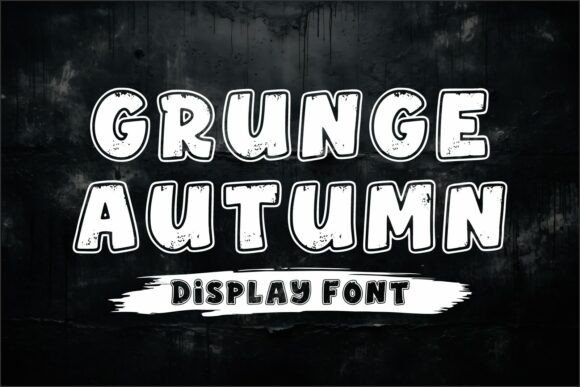
The Birth of Rebellion: Grunge Autumn Font
Do you remember the rush of creating something raw and unbridled? Maybe it was a late-night jam session, a spontaneous art piece, or a hastily scribbled poem. Whatever the spark, it’s that feeling of untamed energy that the Grunge Autumn Font captures with unwavering precision. This bold, distressed typeface embodies the unapologetic spirit of urban rebellion and underground design, daring to be imperfect and unpolished.
Designed to evoke the gritty essence of grunge culture, the Grunge Autumn Font is perfect for designers seeking to inject their work with a fearless attitude and a dash of authenticity. Its rough textures, imperfect edges, and unapologetic vibe instantly demand attention, making it an ideal choice for posters, album covers, streetwear branding, movie titles, and edgy graphic design projects.
- Unique Characteristics: Grunge Autumn Font features a distressed, hand-drawn aesthetic with subtle texture and imperfections, giving it a unique, organic feel.
- Font Style: Grunge Autumn Font is available in regular and italic styles, providing flexibility for designers to create a range of visual effects.
Grunge Autumn Font Review
I recently had the chance to work with the “Grunge Autumn Font” and I must say, it’s a unique and interesting addition to any design project. ✨ The font’s distressed texture and worn look immediately evoke a sense of nostalgia and warmth, perfect for autumn-themed designs or projects that need a laid-back vibe.
- ✨ The font’s texture and imperfections add a level of depth and character to any text, making it stand out from more traditional fonts.
- ✨ The font’s versatility allows it to be used in a variety of contexts, from logos and branding to digital displays and print materials.
However, there are a few limitations to consider. ⚠️ The font’s distressed texture can sometimes make it difficult to read, particularly in smaller sizes or when used in combination with other fonts. Additionally, the font’s worn look may not be suitable for projects that require a more polished or modern aesthetic.
Overall, I think the “Grunge Autumn Font” is a great choice for designers who want to add a touch of nostalgia and character to their projects. While it may not be suitable for every project, it’s a versatile and unique font that can add a lot of depth and interest to a design.
The Grunge Autumn Font is ideal for creating a distressed, vintage look in various design projects, including:
– Music posters and flyers
– Fashion branding and advertising
– Artistic prints and graphics
– Web design and social media graphics
To get the most out of the Grunge Autumn Font, experiment with different layer effects, blending modes, and textures to achieve a unique, distressed look. You can also pair the font with other distressed or vintage elements to create a cohesive design aesthetic.